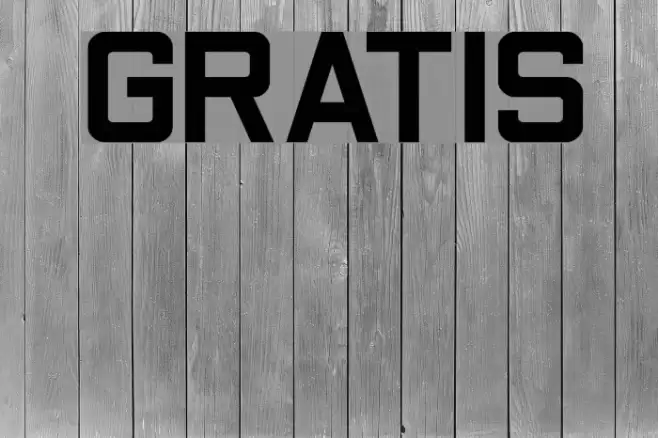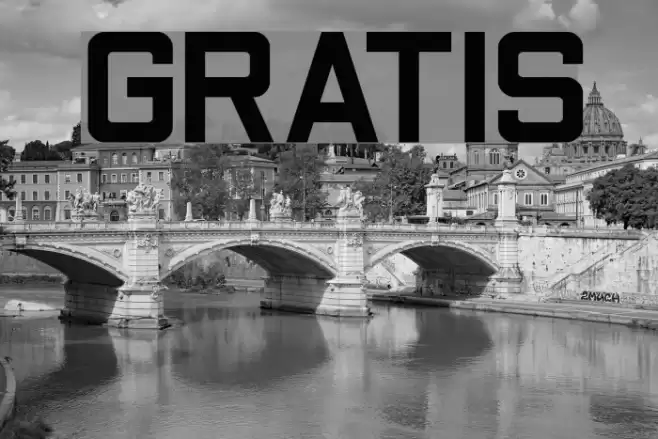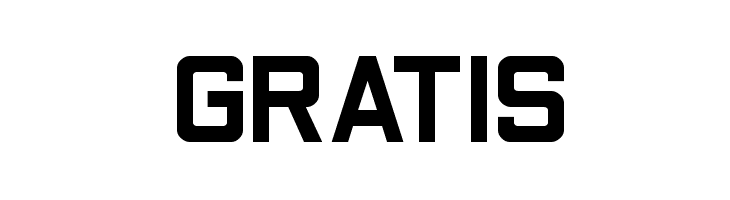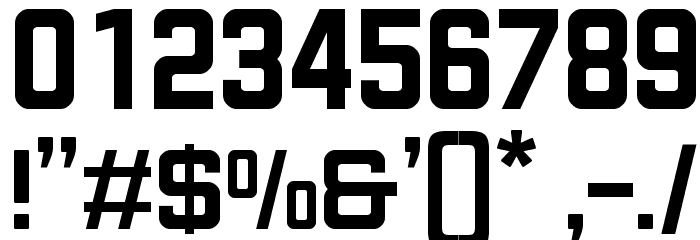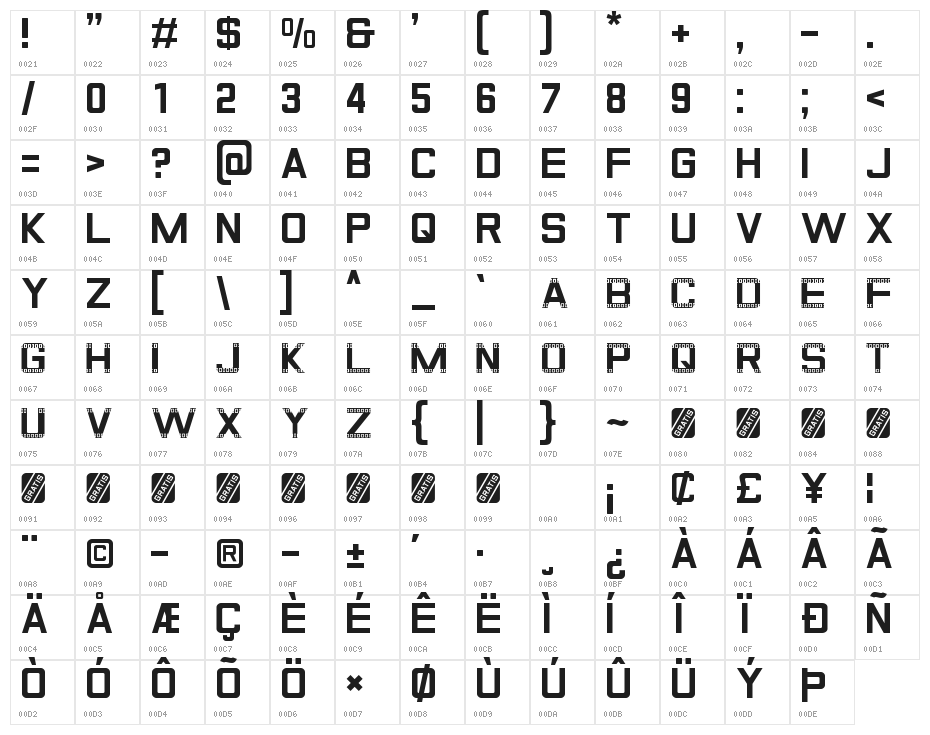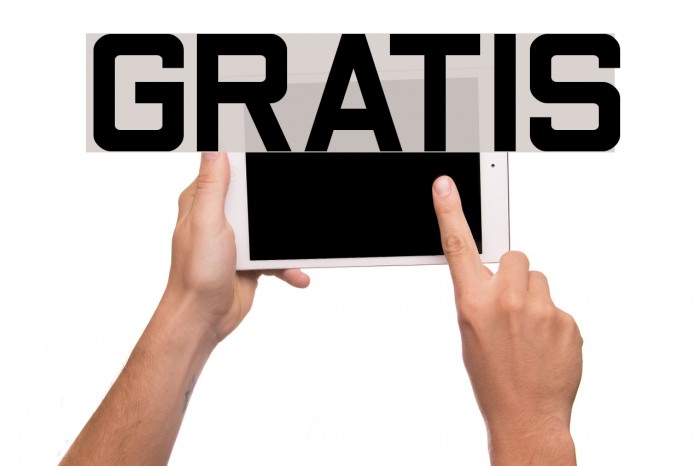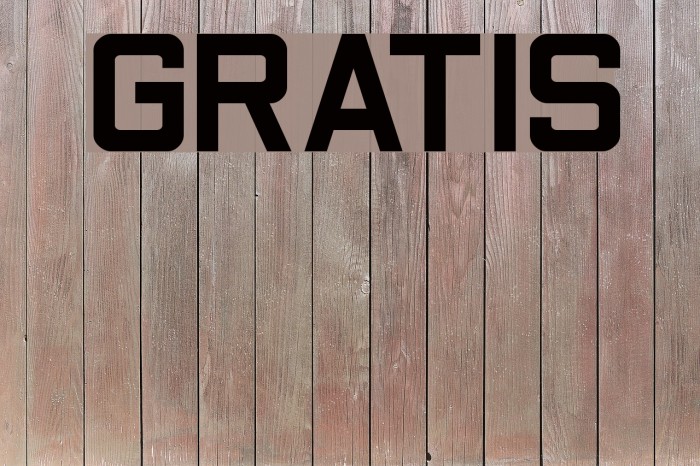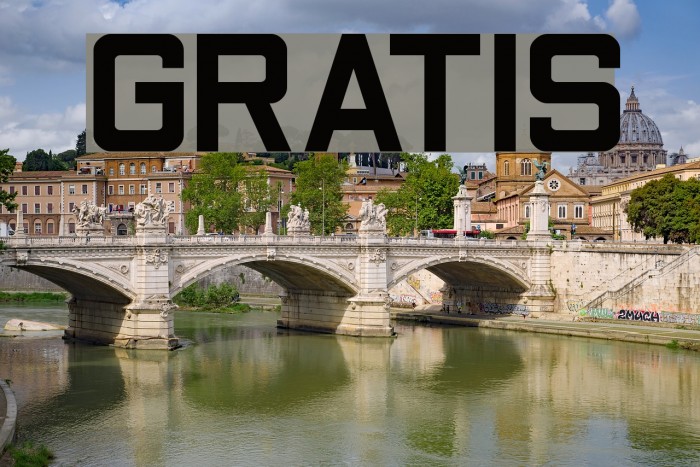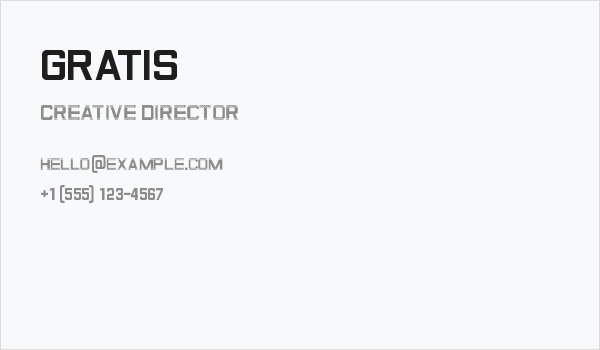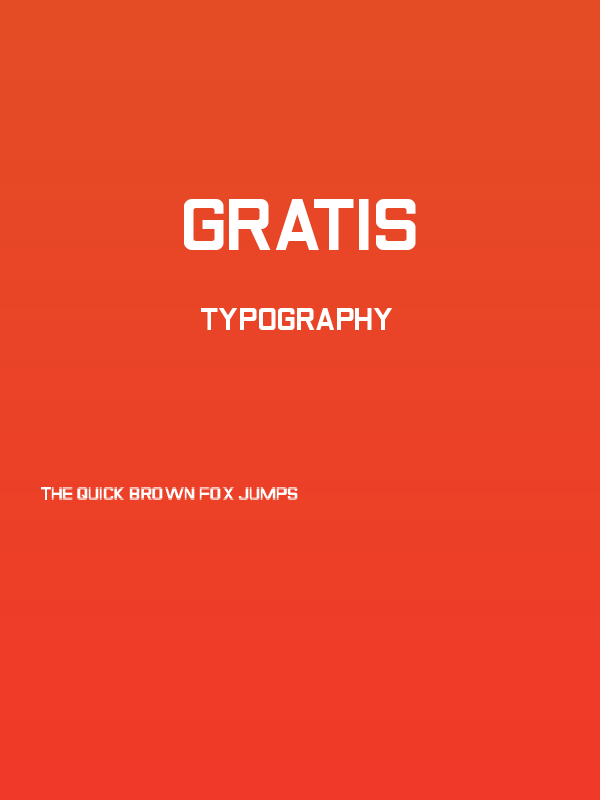
GRATIS Font
GRATIS Description
This font features a bold, geometric design with a strong presence. The uppercase letters are uniform in height, with a consistent stroke width that gives them a solid and impactful appearance. The characters are slightly condensed, which enhances their boldness and makes them suitable for attention-grabbing headlines. The numbers and special characters maintain the same bold style, ensuring consistency across all elements. The font's modern aesthetic is complemented by its clean lines and lack of serifs, making it ideal for contemporary design projects.
A bold, geometric sans-serif font with a modern and impactful style from Uncategorized fonts.
- Proposed Projects: Ideal for headlines, posters, branding, and any project requiring a strong visual impact.